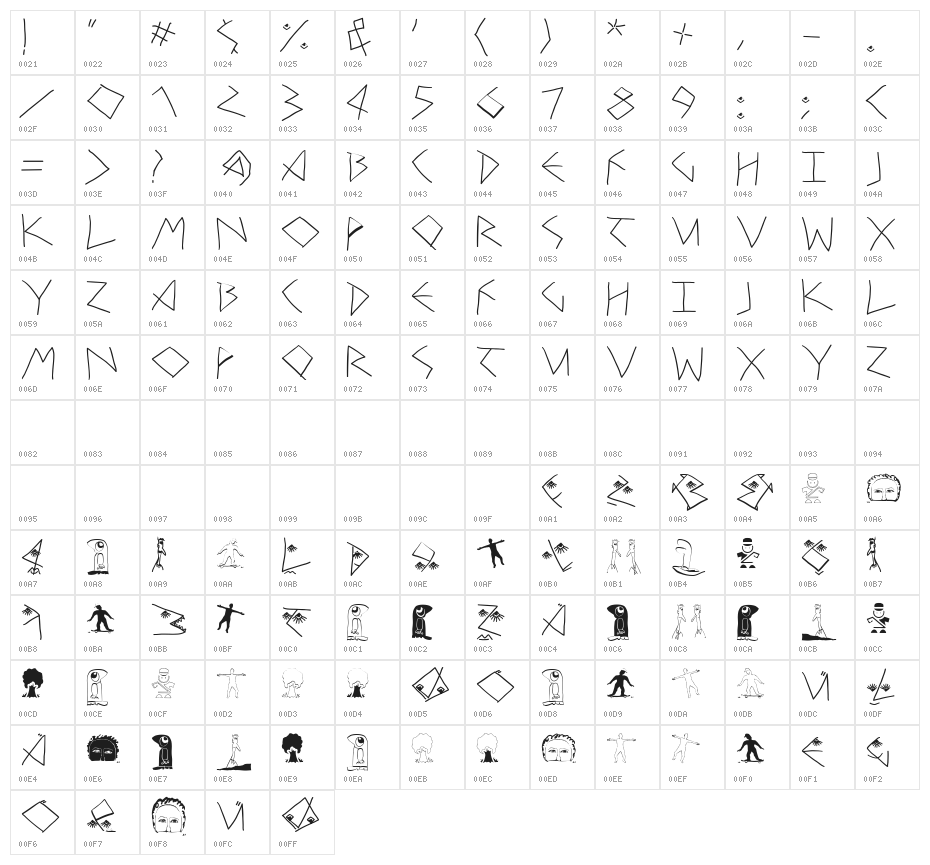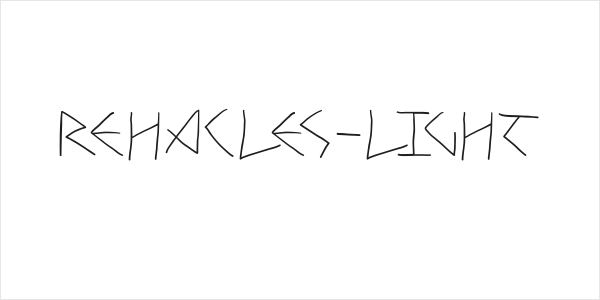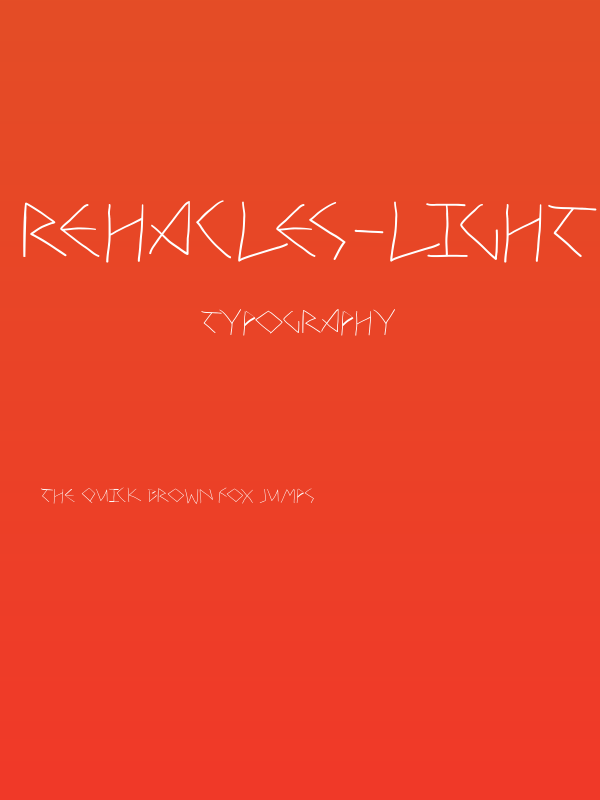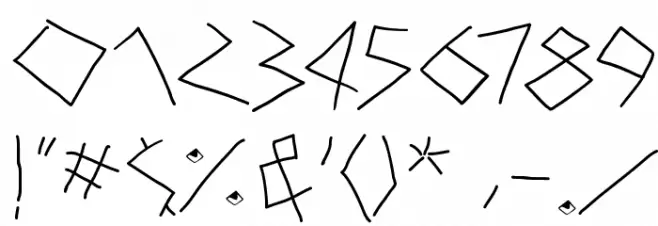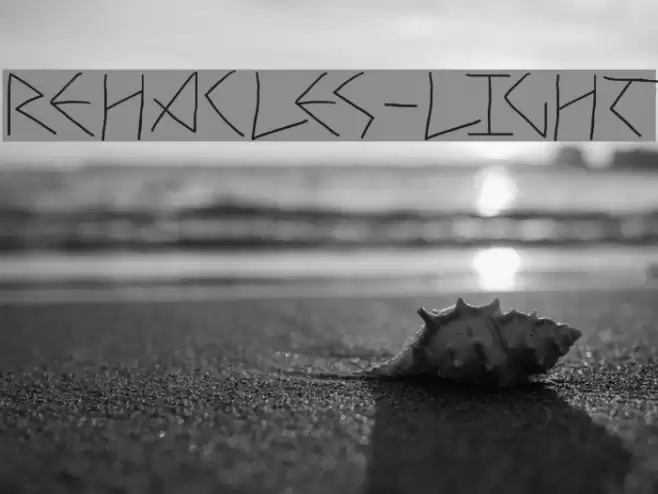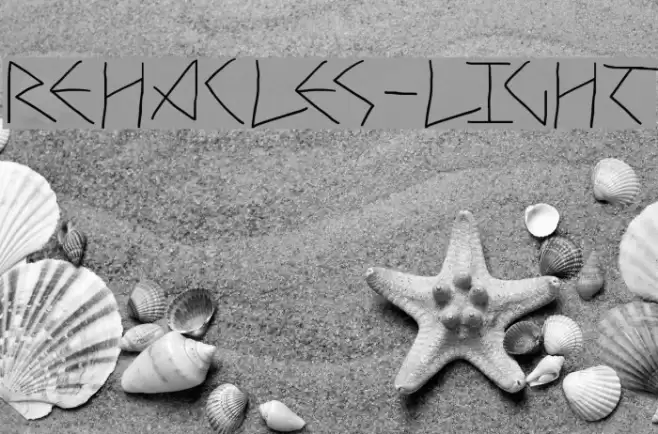
Rehacles-Light Font
Rehacles-Light Description
This font features a unique, angular design with a hand-drawn aesthetic. Each character is composed of straight lines and sharp angles, giving it a geometric and slightly abstract appearance. The uppercase and lowercase letters maintain a consistent style, with the lowercase being slightly smaller but equally angular. Numbers and special characters follow the same design principles, ensuring a cohesive look across all glyphs. The font's thin strokes and irregular spacing contribute to its distinctive, artistic feel, making it stand out in any design project.
| Overall Style | Modern, Artistic |
| Use Case | Logos, Posters, Album Covers |
| Proposed Projects | Ideal for artistic projects, modern branding, album covers, or any design requiring a unique, edgy look. |